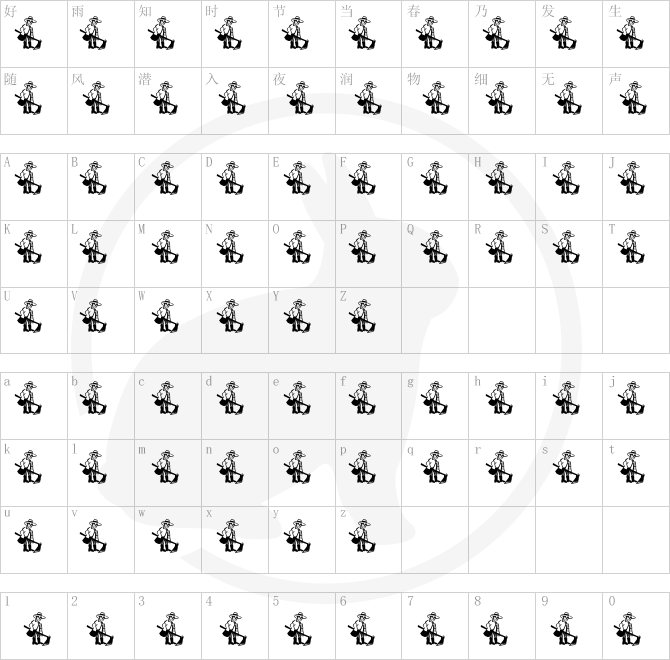
- Font Name:Xilo Cordel Literature IV
Xilo-Cordel-Literature-IV.ttf is a very beautiful artistic font, Xilo-Cordel-Literature-IV.ttf is widely used in the design and printing of various books and pictures,Xilo-Cordel-Literature-IV.ttf has a strong visual impact,Xilo-Cordel-Literature-IV.ttf is a commonly used font in newspapers, magazines and books, and is used in posters, e-commerce Poster design, store design, logo design, font design and other fields.Xilo-Cordel-Literature-IV.